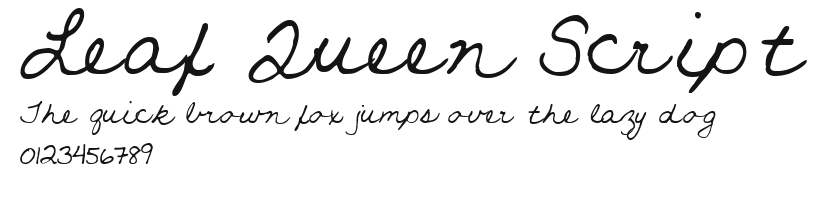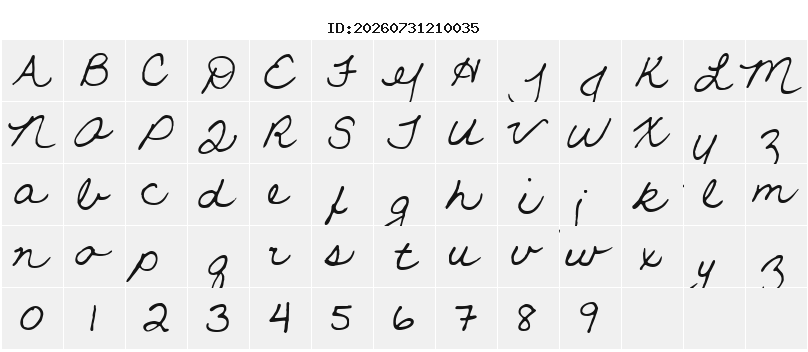
• Font Name: Leaf Queen Script
• Designer: Ellinor Rapp
• Description: This font is part of the Leaf Queen Family, made out of Patty's handwriting... This is scripty2 - version wich I think is a rather smooth script. For alternative letters use version scripty. I did it for free you can get one to! But now I charge $15 for a font - but you have a chance of winning it. Just visit Font Garden. If you find any use for this font I'd love to know :) Check out my hompage for more fonts!